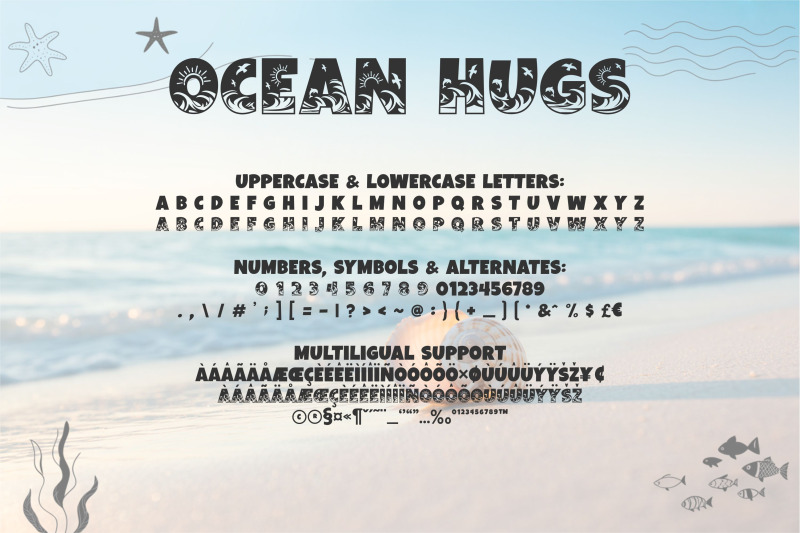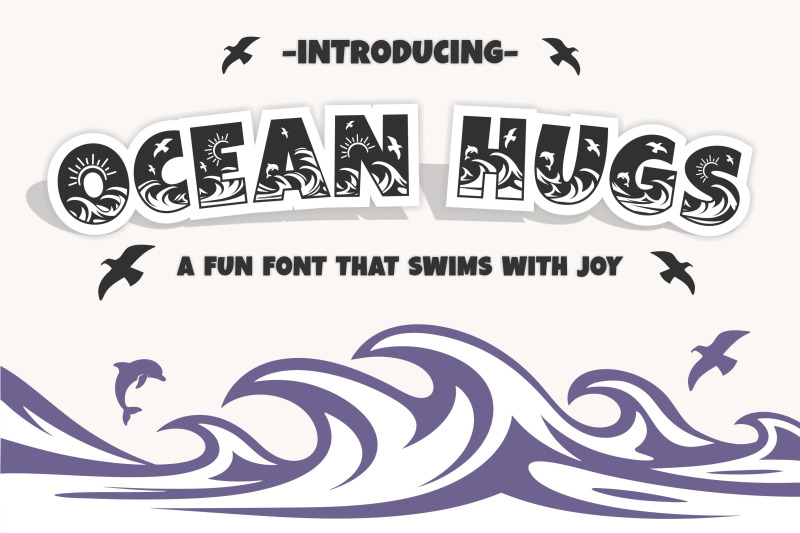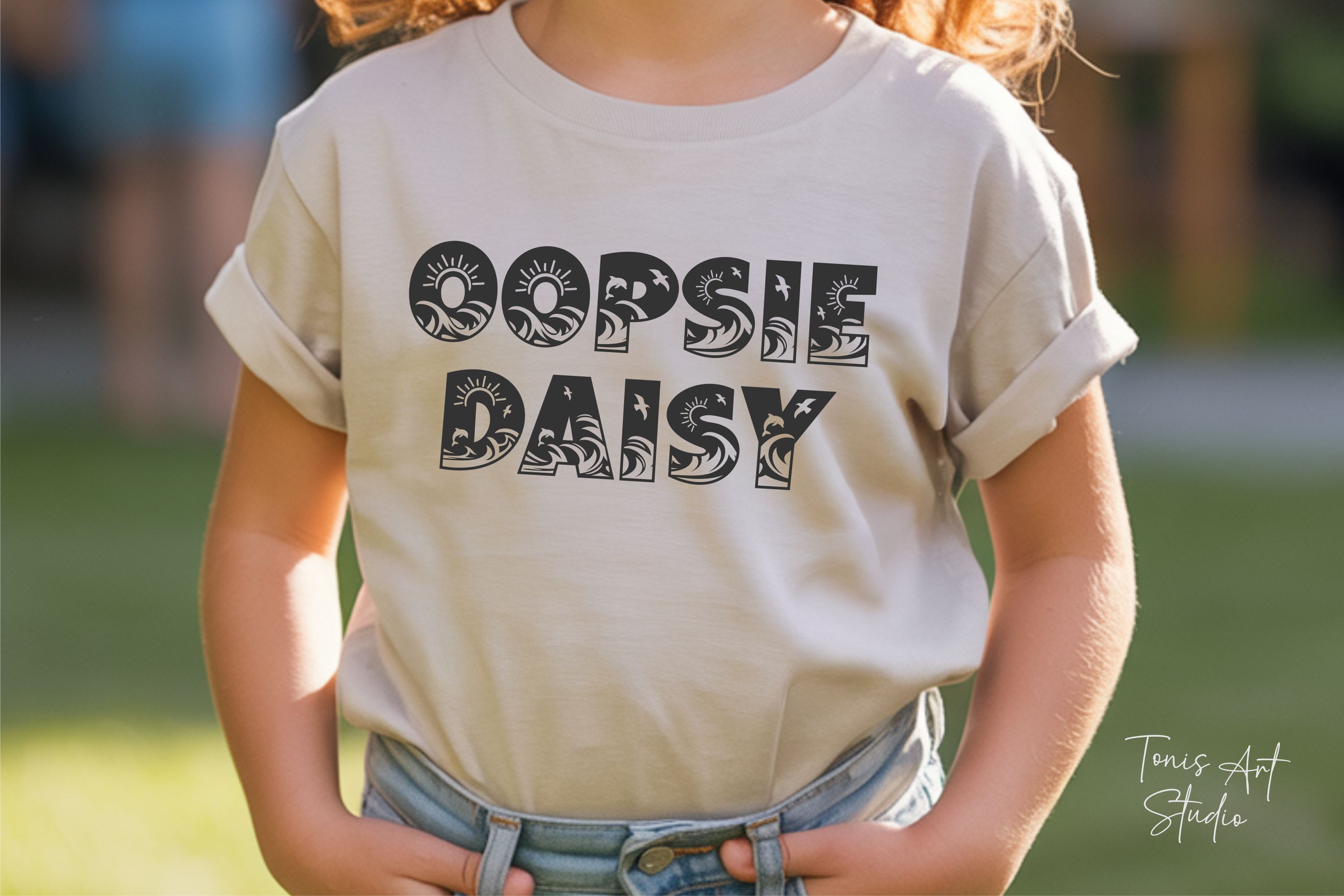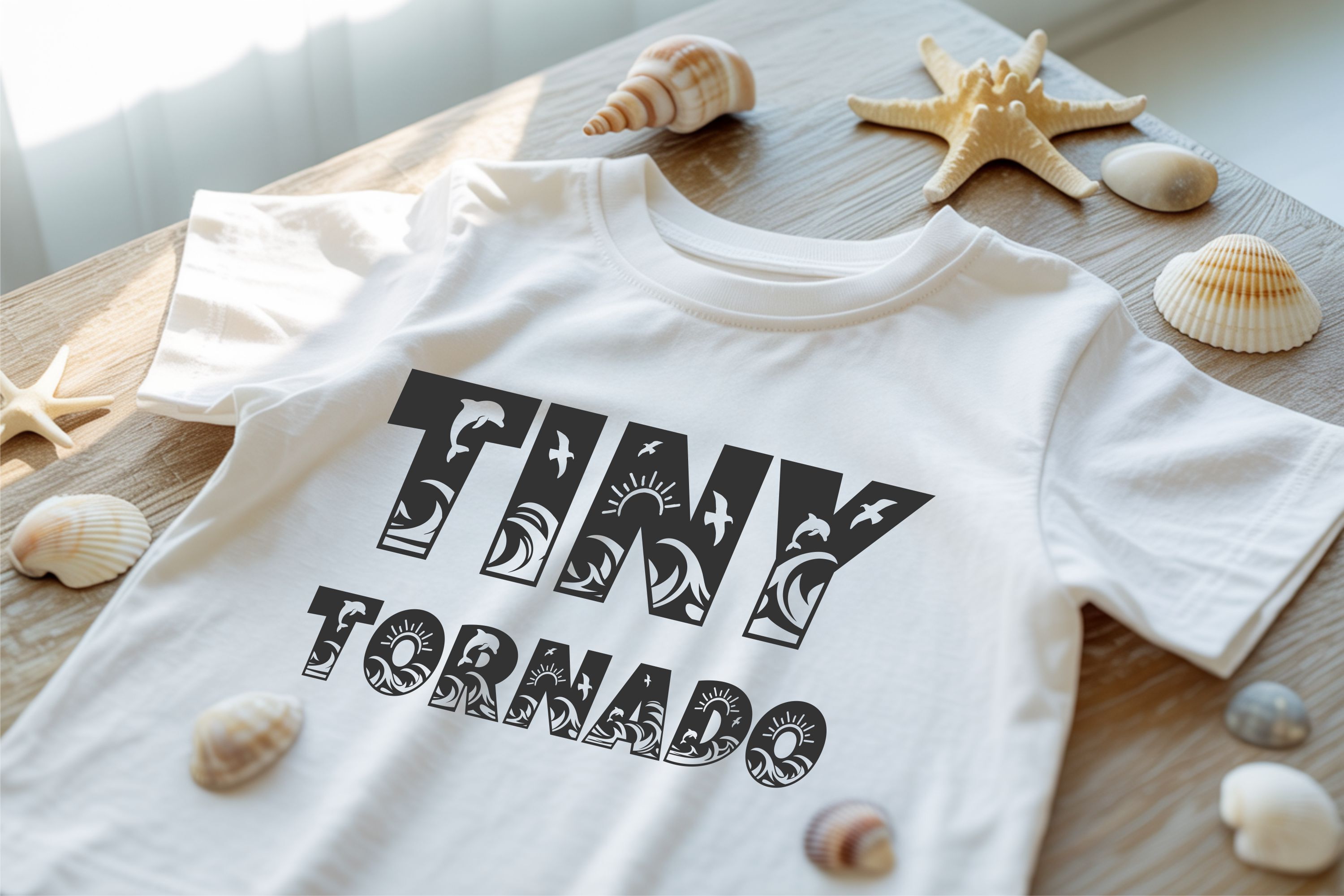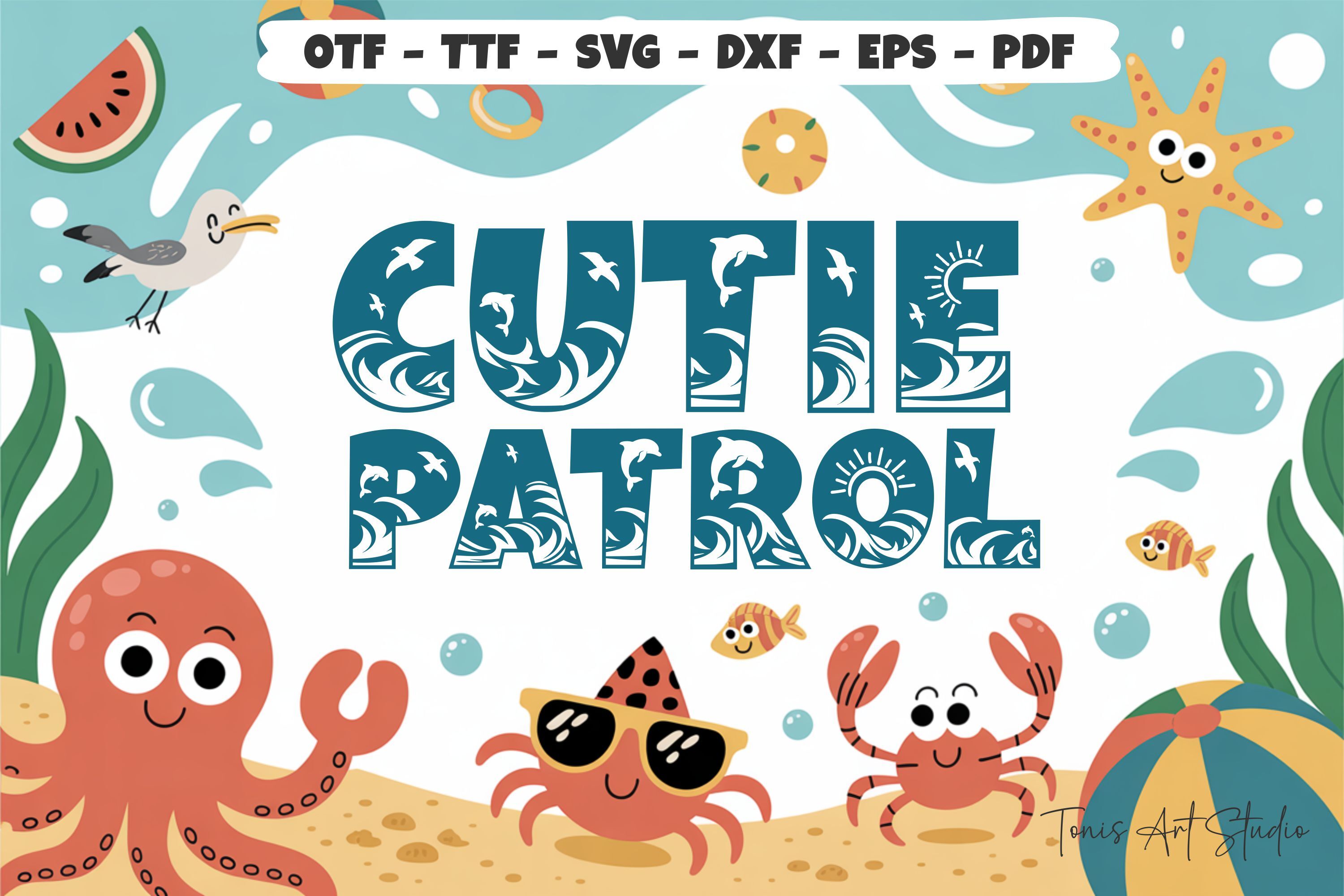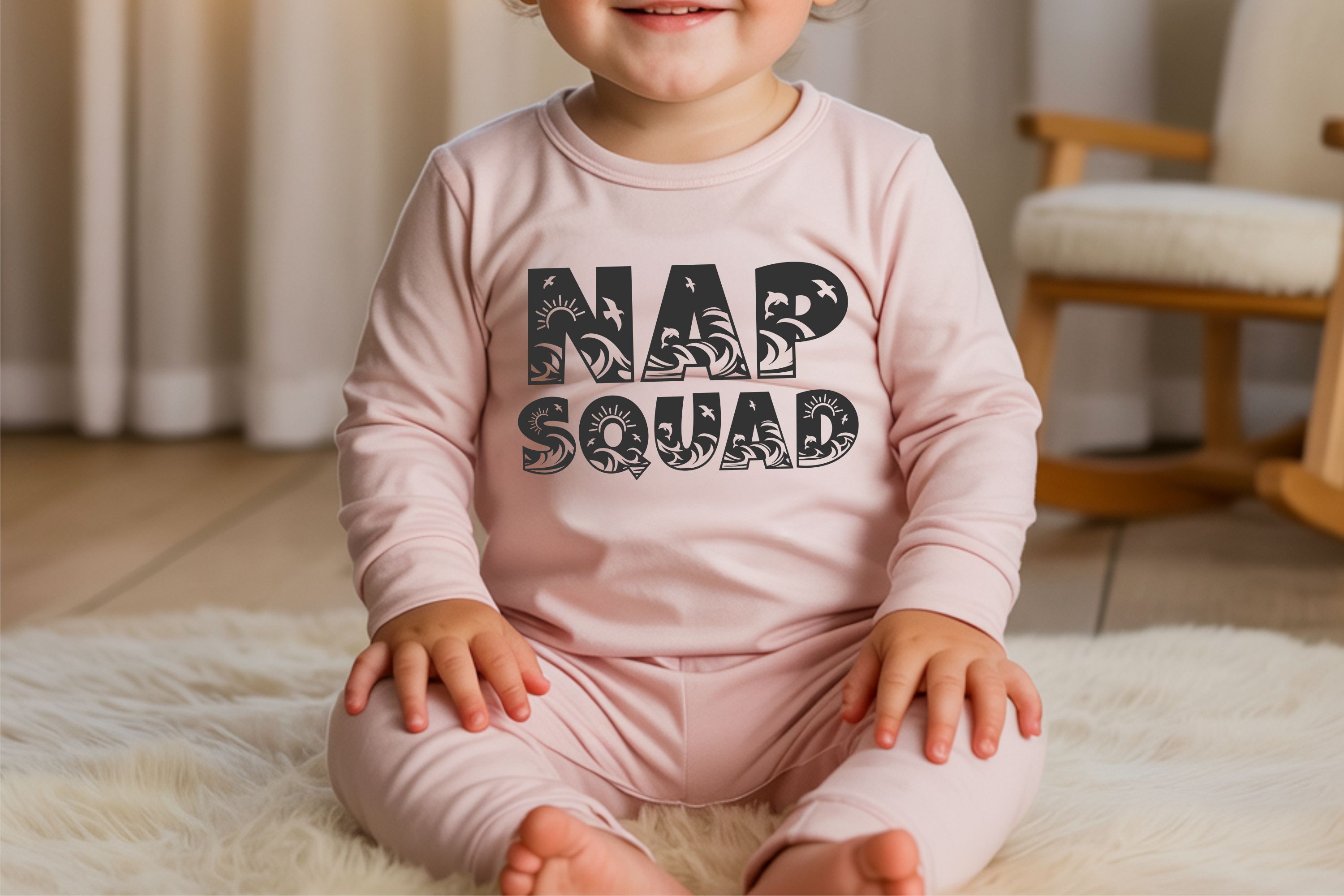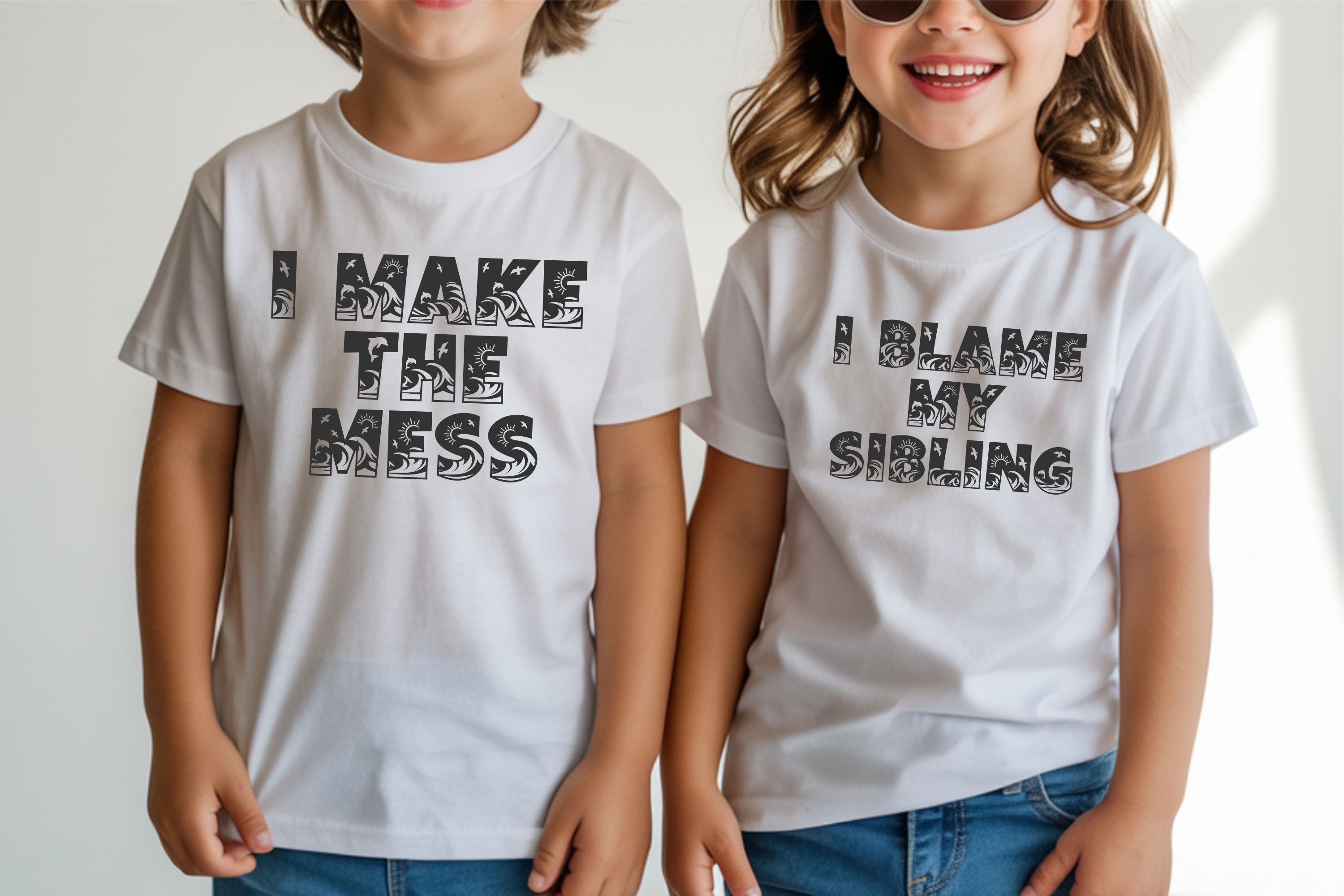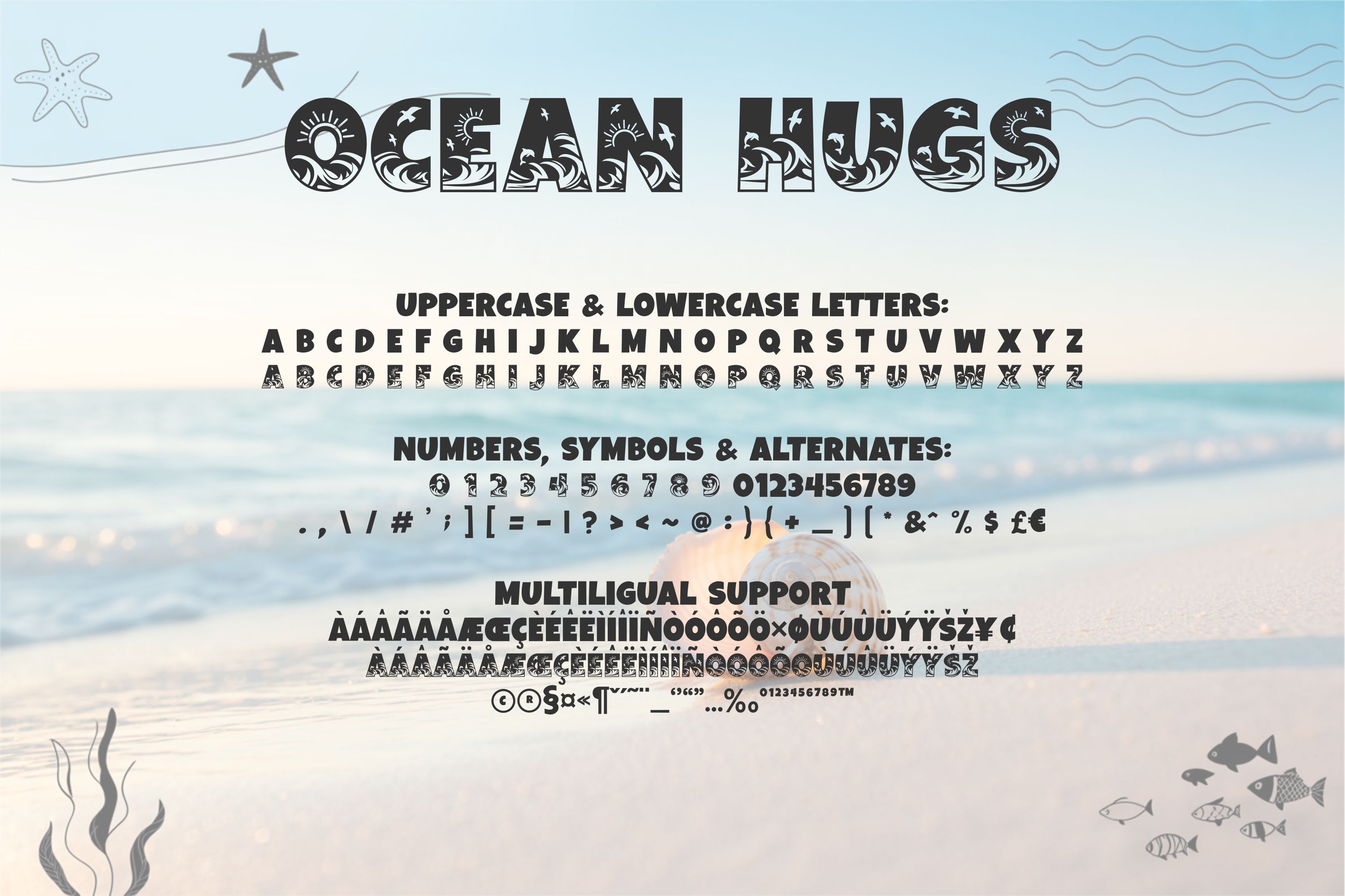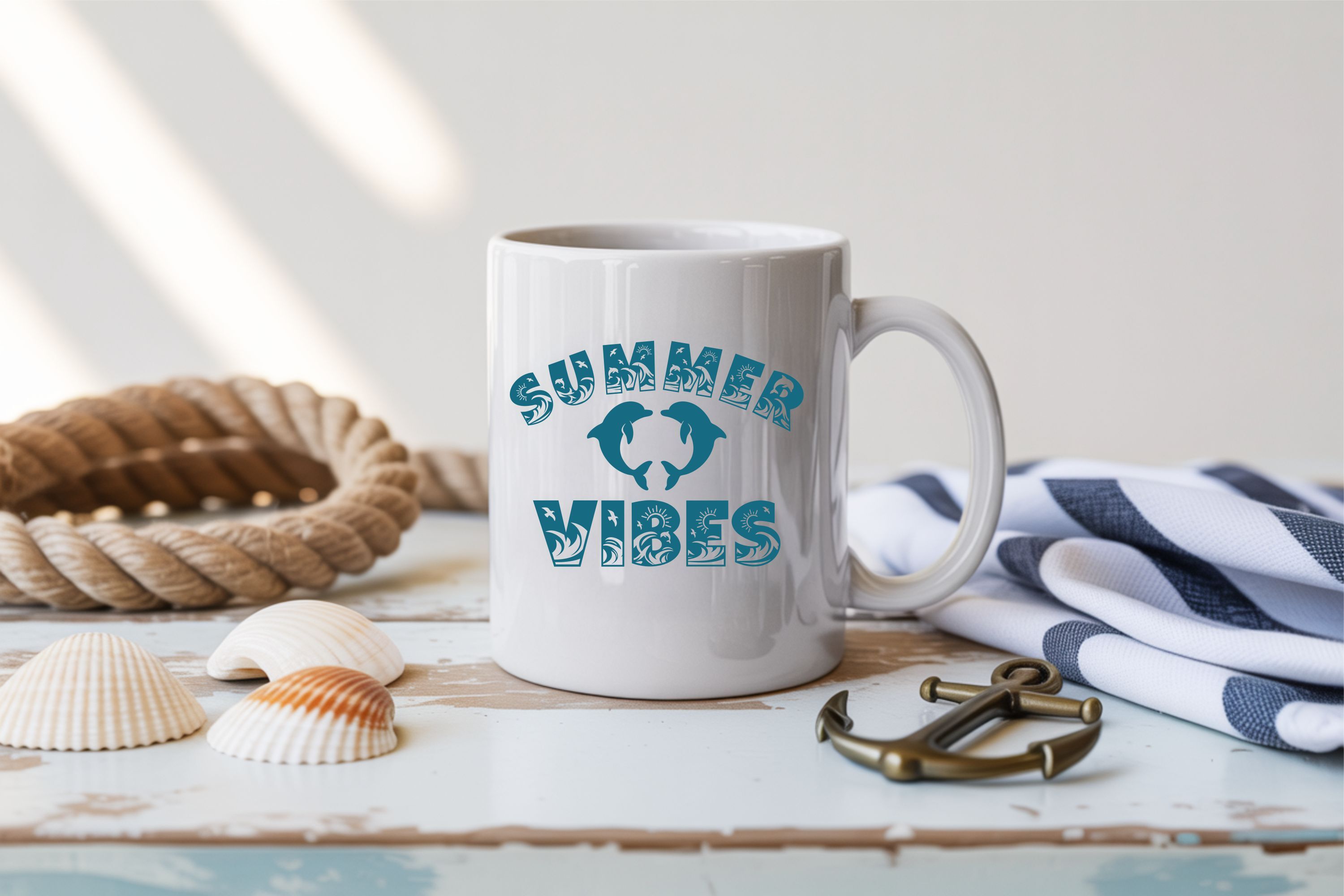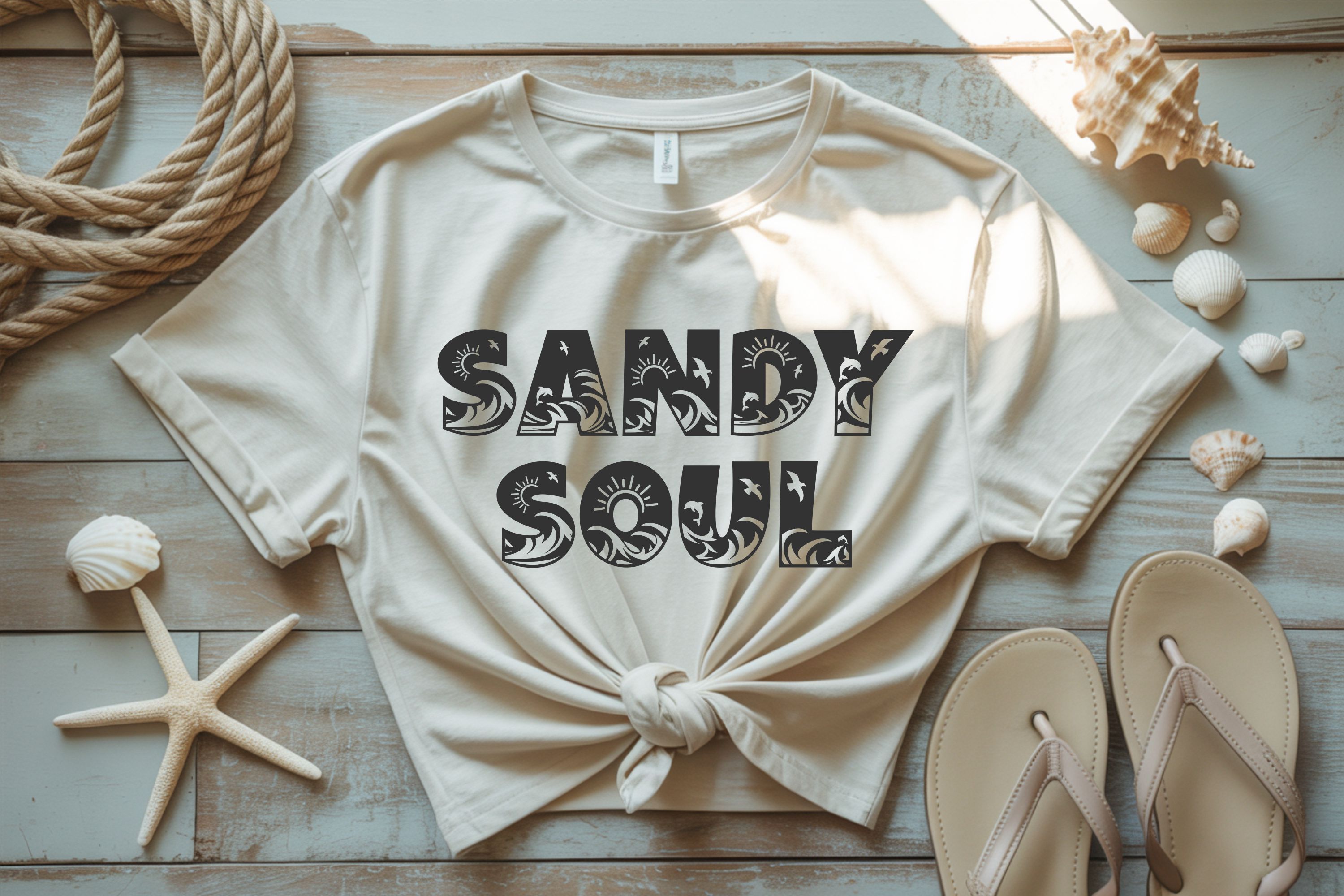
Ocean Hugs is a playful sea-themed font filled with joy! Every letter is decorated with adorable waves, dolphins, birds, and sunshine, making it perfect for kids and beach lovers alike. This font is designed for fun projects like shark birthday shirts, ocean nursery prints, summer invitations, teacher classroom signs, and sea-themed Cricut crafts.
It includes uppercase and lowercase letters, numbers, symbols, and alternates with full multilingual support. Ocean Hugs comes in OTF, TTF, SVG, DXF, EPS, and PDF formats — compatible with Procreate, Cricut, Silhouette, Canva (Pro), and more.
Perfect for summer shirts, Procreate quotes, party decorations, beach signs, or any coastal design project. Let your creativity dive into the ocean and swim with joy using this cheerful font!
Ocean Hugs
Ocean Hugs Cute Sea Life Font with Waves & Dolphins